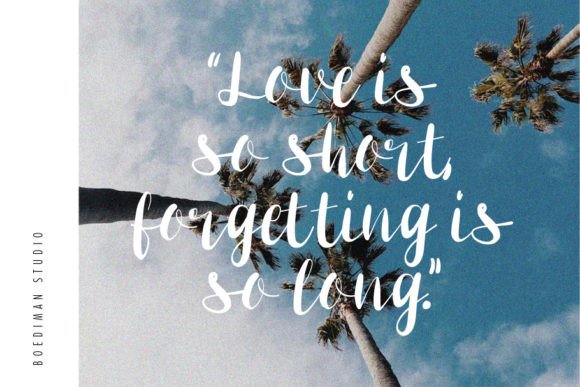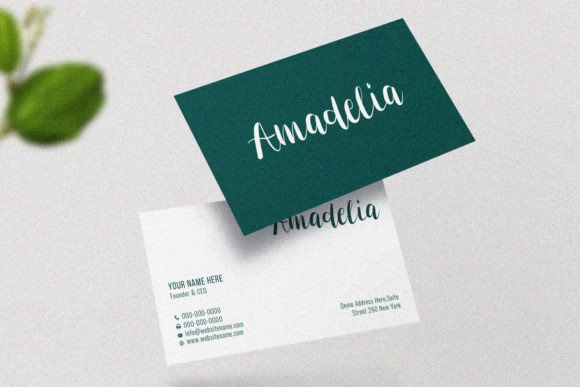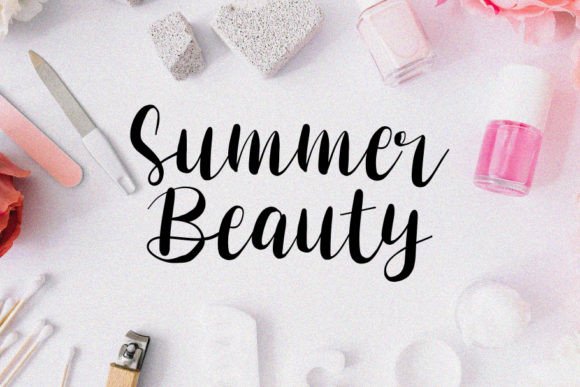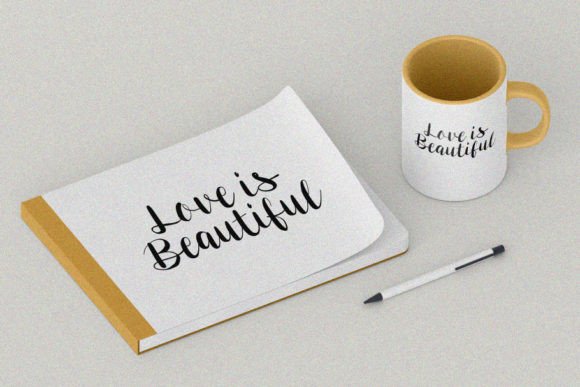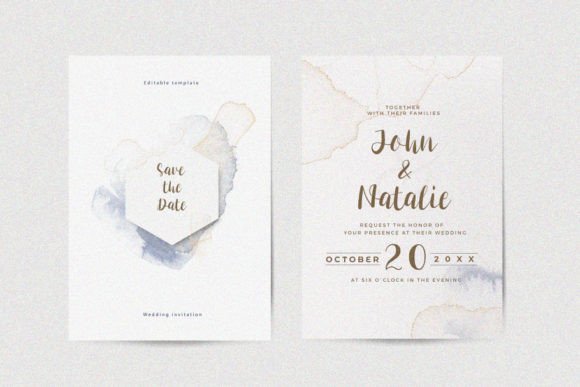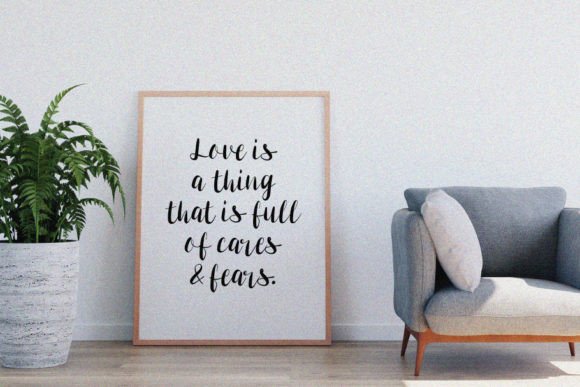
Discovering the Perfect Script: Amadelia Font
There’s nothing quite like the feeling of sitting down with a blank page, a cup of coffee, and a dash of creativity. The world is full of possibilities, and the only limit is your imagination. For designers, this moment is often a starting point for bringing unique ideas to life. And what better way to add a touch of elegance and sophistication to your designs than with the Amadelia Font?
This beautiful calligraphy font is designed to add a personalized touch to various designs, from wedding invitations to thank you cards and greeting cards. Its unique style and character make it a valuable addition to any designer’s toolkit. Whether you’re a seasoned pro or just starting out, the Amadelia Font is sure to help you create stunning designs that leave a lasting impression.
Amadelia Font Key Features
- Font Style: Amadelia Font is a beautiful, elegant script font, perfect for adding a touch of sophistication to any design.
- Character Set: Includes a comprehensive set of characters, including uppercase and lowercase letters, numbers, and punctuation marks, making it suitable for various applications.
- Unique Characteristics: Amadelia Font features a unique, flowing script design with subtle flair and elegance, making it perfect for wedding invitations, certificates, and other formal documents.
Amadelia Font Review
Overall, I think Amadelia Font is a beautiful addition to any designer’s toolkit. Here’s a breakdown of what I like and dislike about it.
- Amadelia’s elegant and feminine design makes it perfect for fashion, beauty, and lifestyle brands.
- The font’s versatility shines through in its many OpenType features, allowing for a wide range of creative expressions.
- The font’s x-height and stroke width make it highly readable, even at smaller sizes.
- Amadelia’s wide language support makes it suitable for global brands.
- The font’s subtle flourishes may not be suitable for brands with a more modern or minimalist aesthetic.
- The font’s larger file size may be a concern for developers working with limited resources.
- Amadelia’s limited typographic features, such as font weights and styles, may not be sufficient for some designers.
Overall, I think Amadelia Font is a solid choice for designers looking for a elegant and versatile font. While it may have some limitations, its beauty and functionality make it a worthwhile addition to any design library.
Alternatives to Amadelia Font for Designers
Lato Font is a modern sans-serif font designed by Łukasz Dziedzic. It is a versatile font suitable for various design projects, including corporate branding, digital products, and print materials. Lato Font is a great alternative to Amadelia Font as it offers a similar clean and minimalist aesthetic, but with a more extensive character set and better support for non-Latin scripts.
Alegreya Font
Alegreya Font is a serif font designed by Juan Pablo del Peral. It is a elegant and sophisticated font ideal for projects that require a touch of luxury and sophistication, such as high-end branding, magazines, and books. Alegreya Font differs from Amadelia Font in its more ornate and classical design, making it a better choice for projects that require a sense of tradition and refinement.